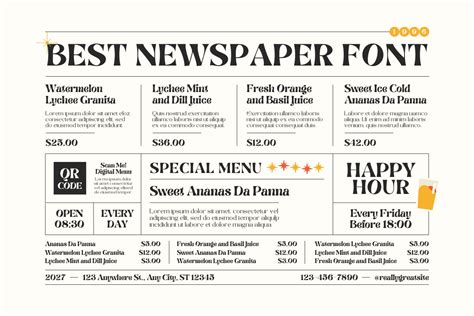
Hey guys! Ever wanted to give your design projects a classic, trustworthy vibe? Or maybe you’re working on a newsletter, a website, or even just a fun personal project and need a font that screams “news”? Well, you’re in luck! This guide is all about newspaper fonts , and the best part? We’re talking about free newspaper fonts. Yup, you can get that professional, time-honored look without spending a dime. So, buckle up, because we’re about to dive into the world of typography and find the perfect font for your needs. We’ll explore various styles, from those that perfectly mimic the old-school broadsheets to modern takes that still capture the essence of a newspaper. Whether you’re a seasoned designer or just starting out, this is your one-stop shop for everything you need to know about newspaper fonts.
Why Newspaper Fonts Matter
Newspaper fonts aren’t just about aesthetics; they’re about communication. They’re designed for readability, making them ideal for lengthy articles and information-heavy layouts. Think about it: newspapers are all about delivering a lot of text in a limited space. The fonts used have to be clear, easy on the eyes, and efficient. This is where the magic of newspaper fonts comes in. They’re crafted to handle those challenges, ensuring that your audience can effortlessly consume your content. Using a newspaper font style free can significantly boost the impact of your text. Beyond their practicality, these fonts evoke a sense of authority, reliability, and tradition. They instantly signal that the content within is important and credible. This is why you see them used everywhere, from official documents to websites that want to project a sense of trustworthiness. Choosing the right font can elevate your brand’s image and make your message resonate more deeply with your audience. Think about how a font can subtly influence the reader’s perception. A well-chosen newspaper font complements the content, enhancing the overall user experience and making your message more memorable. Plus, they’re versatile! They can be used for everything from headlines to body text, maintaining a consistent and professional feel throughout your project. So, whether you’re trying to capture a classic or modern aesthetic, the right newspaper font is key.
The Characteristics of Great Newspaper Fonts
Alright, so what exactly makes a good newspaper font ? It’s more than just a pretty face, guys. Several key characteristics contribute to their effectiveness. First and foremost, readability is king. The best fonts are clear and easy to read, even at smaller sizes. This is especially crucial for print, where ink quality and paper can affect how well the text displays. Look for fonts with distinct letterforms, ample spacing, and a good x-height (the height of the lowercase ‘x’). Secondly, legibility is paramount. Legibility is all about how quickly and easily you can recognize the individual letters and words. Good newspaper fonts prioritize distinct letter shapes to minimize confusion between similar characters, like ‘l’, ‘i’, and ‘1’. You want a font that minimizes the chances of misreading a word. Thirdly, versatility is a huge plus. A versatile font works well in both headlines and body text, maintaining a consistent style throughout your design. Ideally, it should also include a range of weights (light, regular, bold, etc.) and styles (italic, condensed) to give you flexibility. Finally, consider the historical context . Many newspaper fonts are inspired by typefaces used in traditional newspapers. These fonts often have roots in the early days of printing, lending a sense of history and credibility. Examples include fonts with strong serifs (the little strokes at the ends of letters) and a slightly condensed appearance, perfect for fitting lots of text into a narrow column.
Top Free Newspaper Fonts to Download
Okay, let’s get to the good stuff: the newspaper font style free downloads! Here are some of the best options out there, all available for free (usually under an open-source or commercial-use license), perfect for giving your project that authentic newspaper feel:
- Roboto Slab : Not strictly a newspaper font, but it’s incredibly versatile. It is clean and legible, with a touch of character. It includes multiple weights and styles, making it perfect for headlines, subheadings, and body text. Because it’s a slab serif, it offers a strong presence without being overly decorative. A great choice for a modern take on the newspaper aesthetic. Perfect for long-form content.
- Bitter : A sturdy and attractive serif designed specifically for readability on screens. Its high x-height and slightly condensed form make it ideal for body text. While not a traditional newspaper font, it shares many of the same qualities, including excellent legibility and a professional look.
- News Cycle : This one is specifically designed with the news in mind. Its robust and clear letterforms ensure high readability, even in small sizes. News Cycle is a workhorse font, great for both print and digital publications. A solid, reliable choice for any project wanting that classic newspaper look.
- Playfair Display : For headlines and titles, Playfair Display is a fantastic choice. This font is a high-contrast display serif, making it perfect for grabbing attention. While it’s not ideal for long blocks of text due to its high contrast, it’s perfect for headlines. Its elegant and slightly vintage style adds a touch of sophistication to any design. Think of it as the fancy headline font!
- Lora : Another fantastic choice for body text, Lora is a well-balanced, contemporary serif. It combines a modern feel with excellent readability, making it suitable for both print and screen. Lora is an excellent option if you want a clean, modern look with a hint of classic elegance.
How to Choose the Right Newspaper Font
Selecting the perfect newspaper font involves more than just a quick download, my friends. It’s a bit of an art and a science, depending on your project’s needs. Here’s a quick guide to help you choose the best font for your specific requirements:
- Consider Your Project’s Goals : What are you trying to achieve? If you want to convey trustworthiness and tradition, a classic serif font is the way to go. If you’re aiming for a more modern or minimalist look, try a font like Roboto Slab or Bitter. Do you want to scream “news”? Go for News Cycle! Knowing your goals helps narrow down your choices.
- Readability is Key : Test the font in the intended context. Print a sample page, if you’re designing for print. For digital projects, make sure it looks good on various devices and screen sizes. Always prioritize readability! Does the text look crisp and clean? Can you read it easily at different sizes and weights? If the answer is yes, then you’re on the right track.
- Consider the Audience : Who are you trying to reach? A font that works well for a general audience might not be suitable for a niche publication. If your audience is older, a font with good legibility is crucial. If your audience is younger and more tech-savvy, you can be a bit more adventurous with the font choice.
There you have it, guys! A comprehensive guide to the world of newspaper fonts , offering the newspaper font style free options. From understanding the key characteristics of these fonts to finding the best free downloads and mastering the art of using them effectively, you’re now equipped to elevate your projects with a touch of classic charm and enhanced readability. Remember, the right font can make all the difference, creating a lasting impression and ensuring your message is not just read, but truly understood. So go forth, experiment, and enjoy creating designs that capture the essence of a timeless tradition!